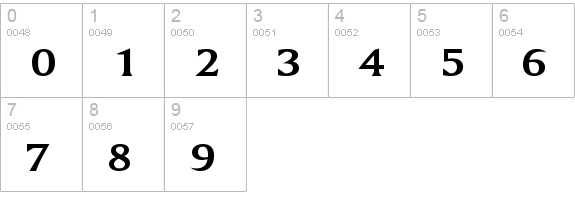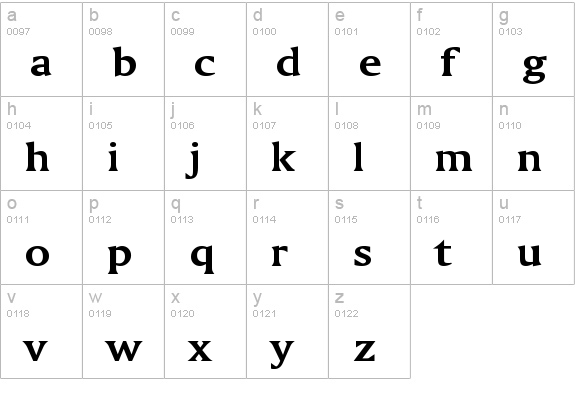
Ameretto Wide Bold is a strong, high-contrast, extended-width variant in the Ameretto typeface family \xE2\x80\x94 well suited to headlines, attention-grabbing titles, and strong calls-to-action.
Ameretto Wide Bold font is a modern and versatile typeface that exudes confidence and sophistication. With its bold and wide design, this font commands attention and makes a bold statement in any project. Perfect for headlines, logos, posters, and more, Ameretto Wide Bold adds a touch of elegance and style to your designs. The best part? Ameretto Wide Bold font is available for free download at FontsMarket.com. Simply visit the website to access this stunning font and elevate your design projects with its professional and impactful look. Don't miss out on this opportunity to enhance your creative endeavors with Ameretto Wide Bold font - download it today and take your designs to the next level!